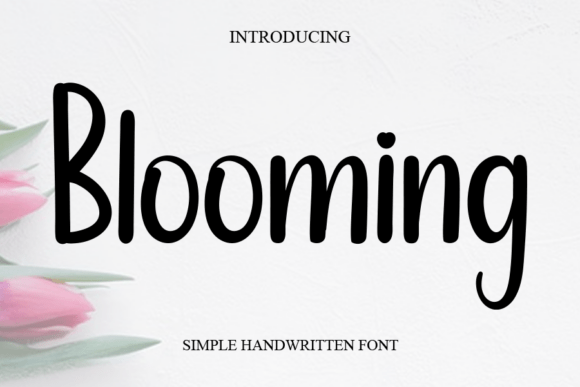
The Blooming Font: A Breath of Fresh Air for Your Designs
I’ll never forget the time I was working on a project for a local florist, trying to find the perfect font to capture the essence of their beautiful bouquets. I had a vision of something delicate, yet playful; elegant, yet approachable. After hours of scrolling through font libraries, I stumbled upon Blooming – a simple handwritten font that instantly transported me to a sunny afternoon surrounded by blooming flowers. In this article, I’ll share my love for Blooming, its features, and how to make the most of it in your designs.
First Impressions: What I Love About Blooming
Blooming has quickly become one of my go-to fonts, and for good reason. Here are a few things that make it stand out:
- ✨ Tall, slender letterforms that exude elegance and sophistication
- ✅ Soft, rounded terminals that add a touch of warmth and friendliness
- ✨ Monoline weight for excellent legibility across various sizes
- ✅ Playful yet tidy aesthetic that’s perfect for a wide range of projects
A Few Quirks to Keep in Mind
While Blooming is an amazing font, it’s not without its limitations. Here are a few things to keep in mind:
- ⚠️ Limited character set: Blooming is a single-weight font, so you won’t find multiple weights or styles to choose from.
- 🤔 Not ideal for body text: While Blooming is legible, its slender letterforms can be a bit challenging to read in large blocks of text.
The Story Behind Blooming
Blooming was designed with the intention of capturing the joy and simplicity of a handwritten font. The designer, inspired by the beauty of nature and the elegance of handwritten scripts, created Blooming as a way to bring a touch of warmth and approachability to designs.
| What is Blooming best suited for? | Blooming is ideal for projects that need to feel approachable and heartfelt, such as branding for florists, handmade gift shops, children’s boutiques, and bakeries. |
| Can I use Blooming for body text? | While Blooming is legible, its slender letterforms can be a bit challenging to read in large blocks of text. It’s best suited for headlines, titles, and short paragraphs. |
In conclusion, Blooming is a beautiful, handwritten font that can add a touch of natural charm to your designs. With its elegant letterforms, soft terminals, and monoline weight, it’s perfect for projects that need to feel approachable and heartfelt. Whether you’re a designer, crafter, or creative hobbyist, Blooming is definitely worth checking out.